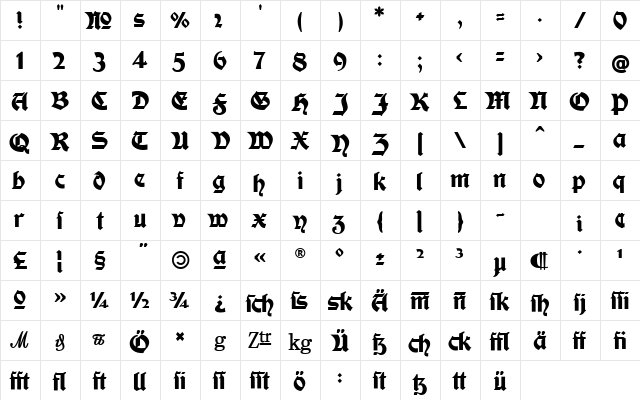
Moderne Fette Schwabacher Regular
| Foundry | Peter Wiegel |
| Designer | Peter Wiegel |
| Year | 2010 |
Design Context for Moderne Fette Schwabacher Typeface
Moderne Fette Schwabacher takes a measured approach to typography — its balanced proportions and neutral character make it a reliable workhorse for both digital and print work.